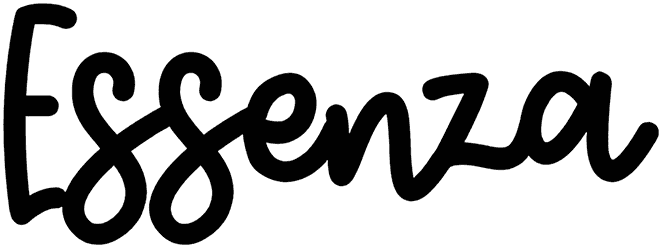
Essenza Font
Essenza is the font that can turn all your ideas for a new project into an artwork. This monoline script is a stylish, fast handwritten font that can create a sense of elegance and modernity in the text.
So, if you are looking for a font that implements your creative, informal, or formal ideas, such as invitation cards, letterheads, website logos, and advertisements in a warm and friendly way, enjoy Essenza. But notice that it’s a bit hard to read.
Essenza is a handwriting font with monoline script style, Essenza clean lines and sharp edges make it a perfect script fonts for weddings.